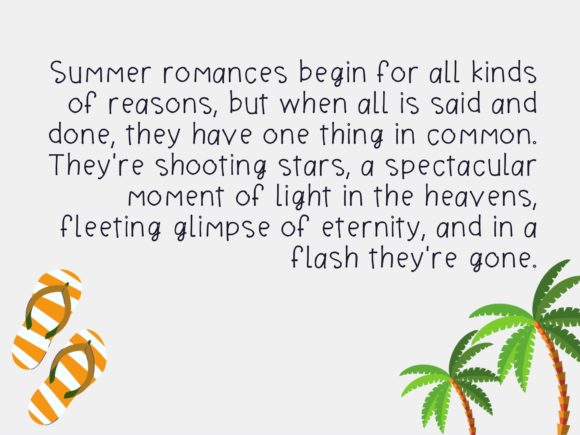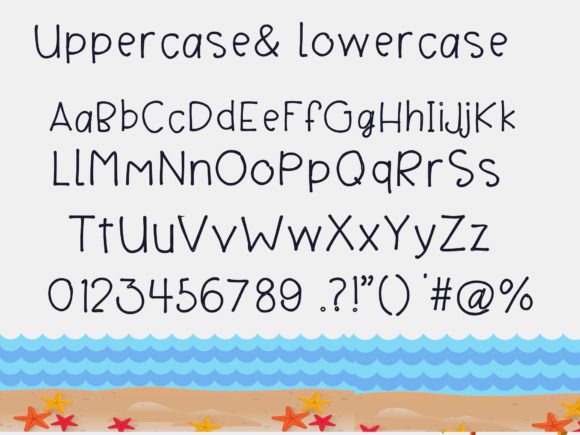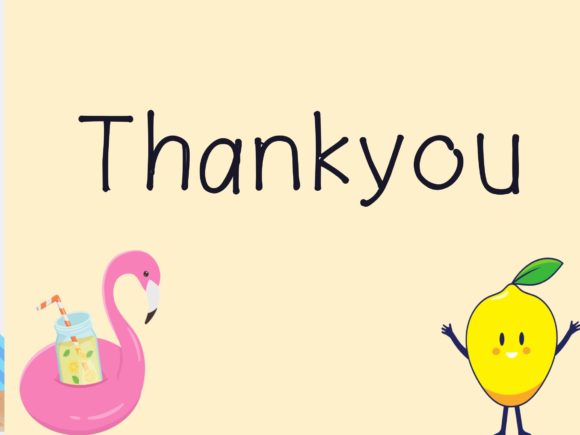
Introducing Cool Summer Font: Elevate Your Designs with a Simple yet Smart Handwritten Style
Are you on the hunt for a font that can effortlessly elevate your creative projects and make them stand out from the crowd? Look no further than Cool Summer Font, a beautifully simple and smart handwritten font designed to complement an incredibly large set of projects. With its unique charm and versatility, Cool Summer Font is the perfect addition to your design toolkit, allowing you to bring a fresh and personalized touch to your work.
The Essence of Cool Summer Font
Cool Summer Font is characterized by its clean, flowing lines and a friendly, approachable vibe that immediately captures the essence of a carefree summer day. Its simplicity is its greatest strength, making it highly legible and adaptable across various mediums and applications. Whether you’re working on a branding project, crafting a unique invitation, designing a captivating poster, or simply adding a personal touch to your digital content, Cool Summer Font seamlessly integrates and enhances your creative vision.
One of the key advantages of Cool Summer Font is its incredible versatility. This font isn’t limited to a specific genre or style; instead, it can be effortlessly matched with a wide array of projects. From:
This adaptability makes Cool Summer Font a valuable asset for designers, crafters, and anyone looking to add a unique flair to their projects.
Why Choose Cool Summer Font?
There are several reasons why Cool Summer Font should be your go-to choice for your typography needs:
• Easy to Read: Despite its handwritten nature, Cool Summer Font maintains a high level of legibility, making it suitable for both short and long texts.
• Aesthetically Pleasing: Its smart and stylish appearance adds a touch of elegance and modernity to any project.
• Unique Appeal: Stand out in a sea of generic fonts with a distinctive style that captures attention and leaves a lasting impression.
Cool Summer Font is more than just a simple and smart handwritten font; it’s a versatile design tool that can transform your creative projects and make them truly stand out. Its unique blend of simplicity, elegance, and friendliness makes it an excellent choice for designers and crafters across various disciplines. By incorporating Cool Summer Font into your design repertoire, you’re not just adding a font – you’re unlocking a world of creative possibilities that can elevate your work to new heights. So why wait? Discover the cool and effortless charm of Cool Summer Font today and watch your designs flourish with a fresh and personalized touch.